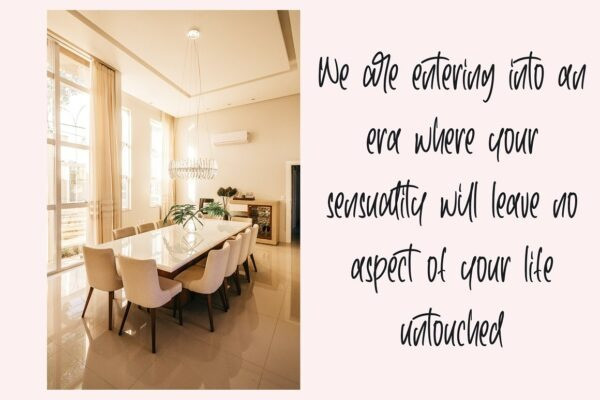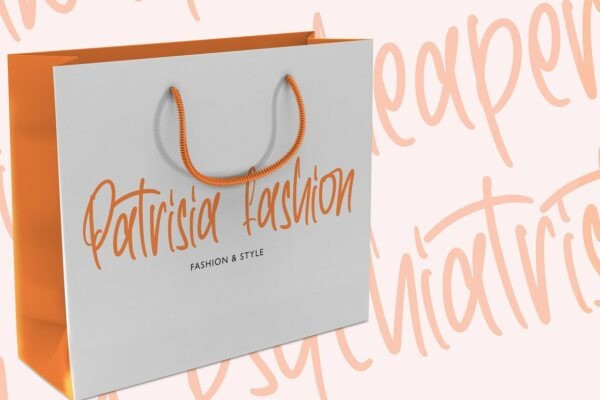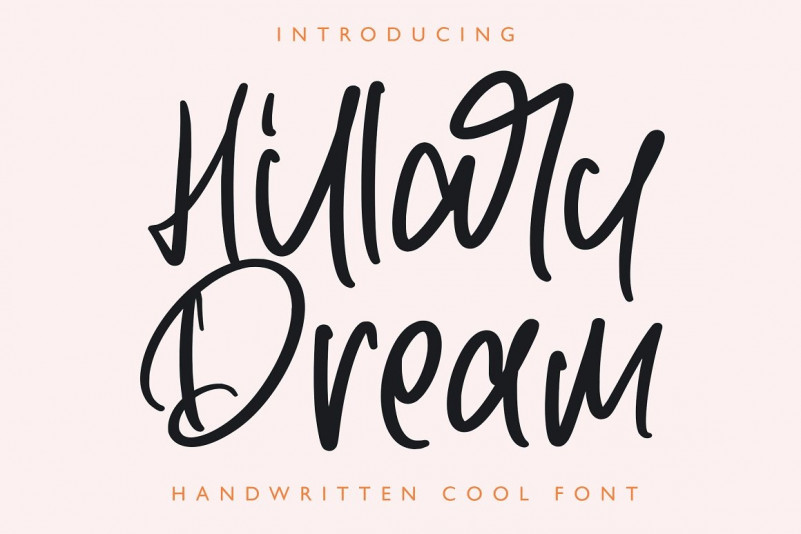
Hillary Dream Script Font
Introducing a new font called Hillary Dream – Handwritten Font inspired by urban fonts with sharp and beautiful letters that create fonts that are modern, trendy and elegant.
Hillary Dream came with opentype features such stylistic alternates, stylistic sets & ligatures good for logotype, poster, badge, book cover, tshirt design, packaging and any more.